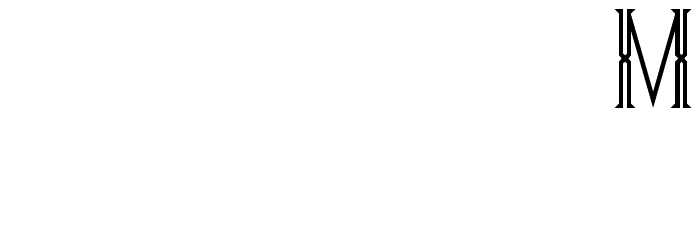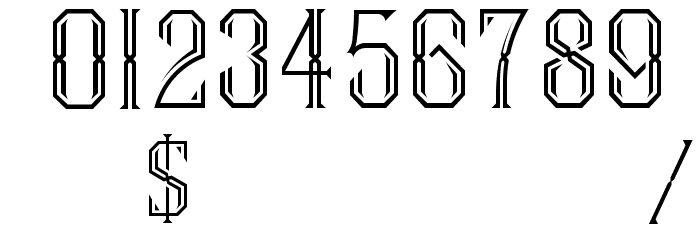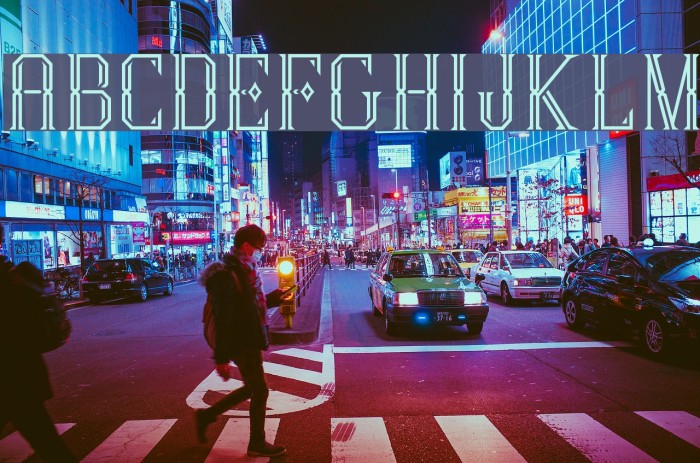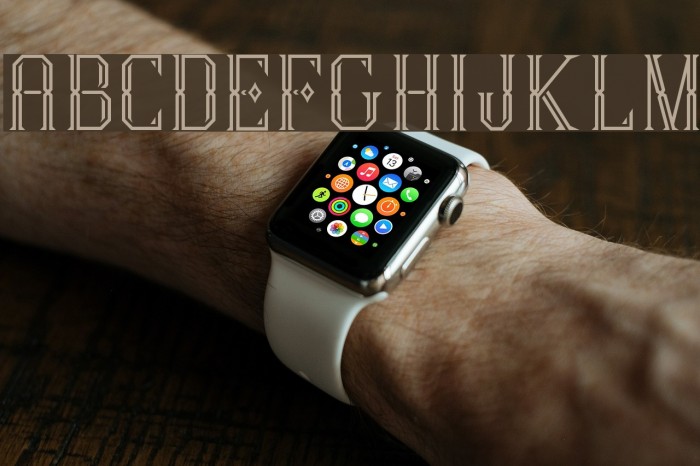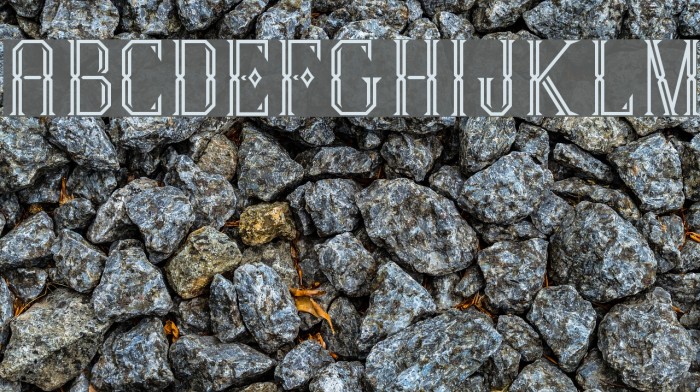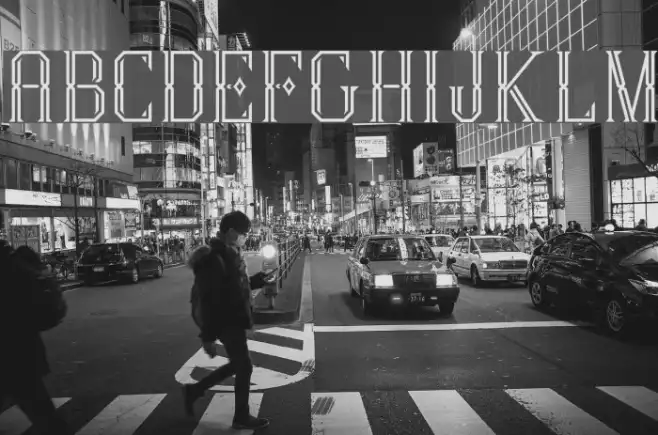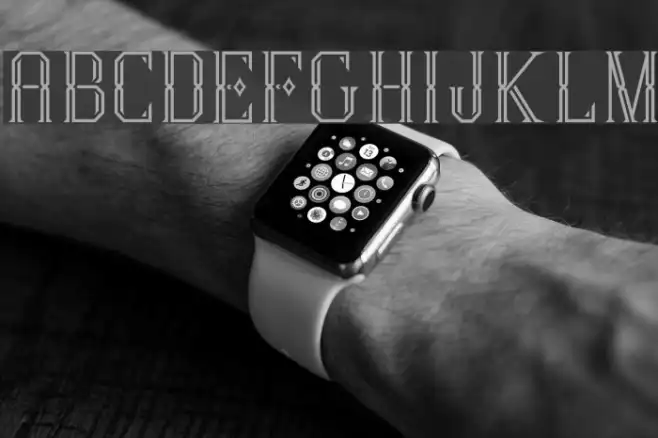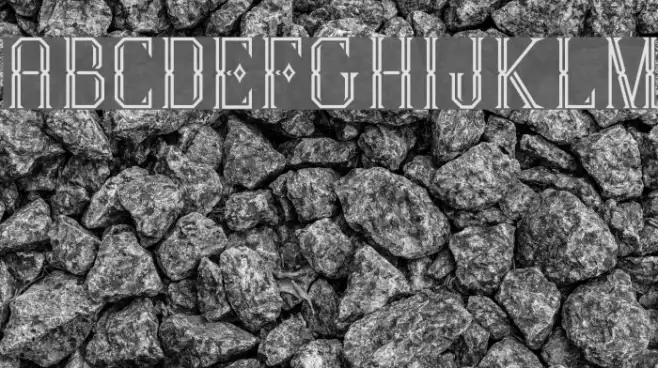
MarcelCaps Font
This font features a unique and decorative style with a vintage flair, characterized by its intricate geometric patterns and bold lines. The uppercase letters are particularly striking, with angular shapes and a sense of symmetry that gives them a strong, architectural feel. The numerals and special characters maintain this ornate design, making them stand out with their elaborate detailing. The overall appearance is both elegant and eye-catching, suitable for projects that require a touch of sophistication and historical charm.
A decorative font with vintage geometric patterns and bold lines.
- Font: MarcelCaps
- Proposed Projects: Ideal for vintage-themed posters, branding, logos, and decorative headlines.
- Overall Style: Vintage
- Use Case: Headlines, Logos, Decorative elements